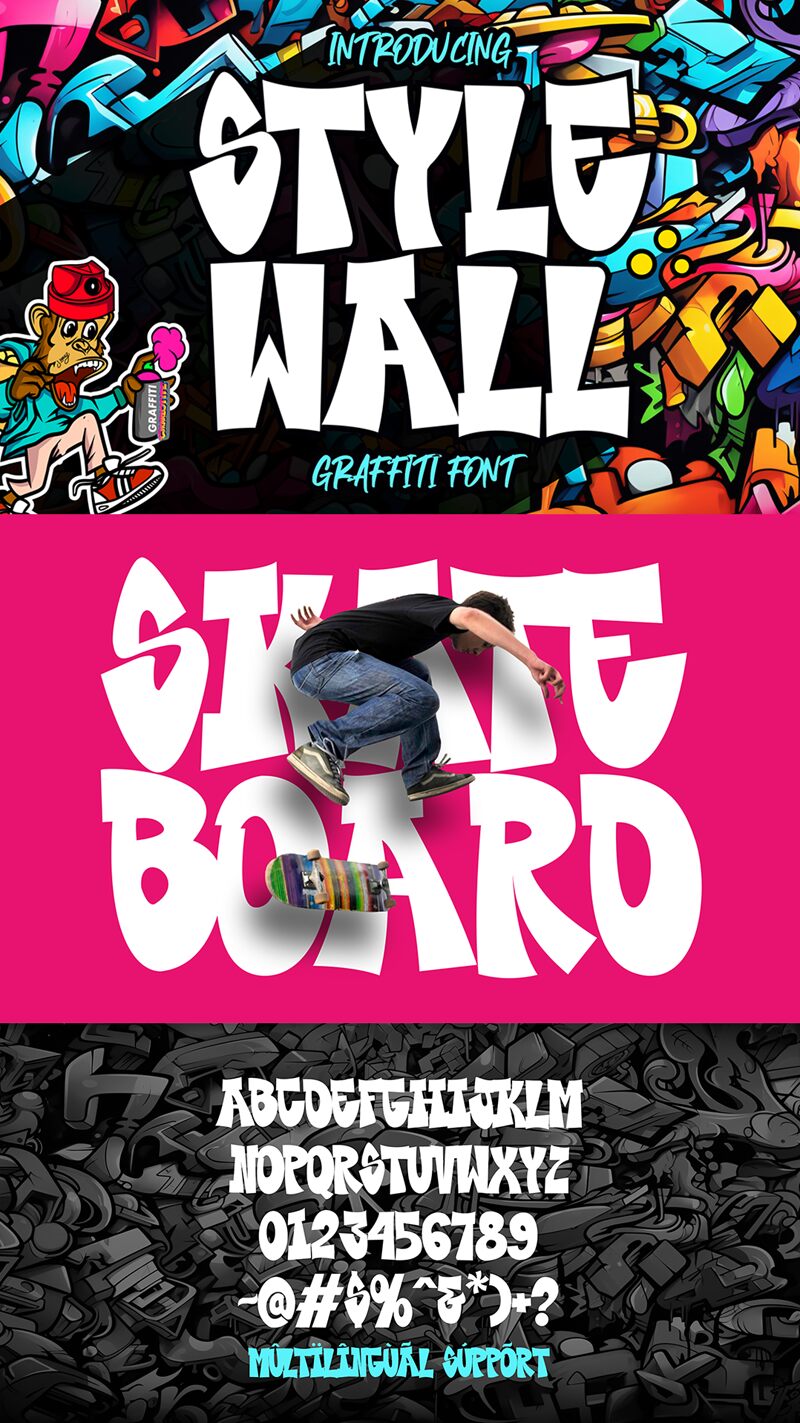
Style Wall font by Cikareotype Studio is a graffiti-inspired typeface that channels the vibrant energy of urban street art. This free font offers a dynamic and expressive look, exuding a contemporary youthfulness that is both bold and energetic. Its whimsical design makes it an ideal choice for projects that require a lively yet artistic touch.
Perfect for logos, posters, and apparel, Style Wall can also be used for album covers, flyers, packaging, websites, social media graphics, and event promotions. This typeface lends itself well to any creative project that demands a modern and engaging aesthetic.